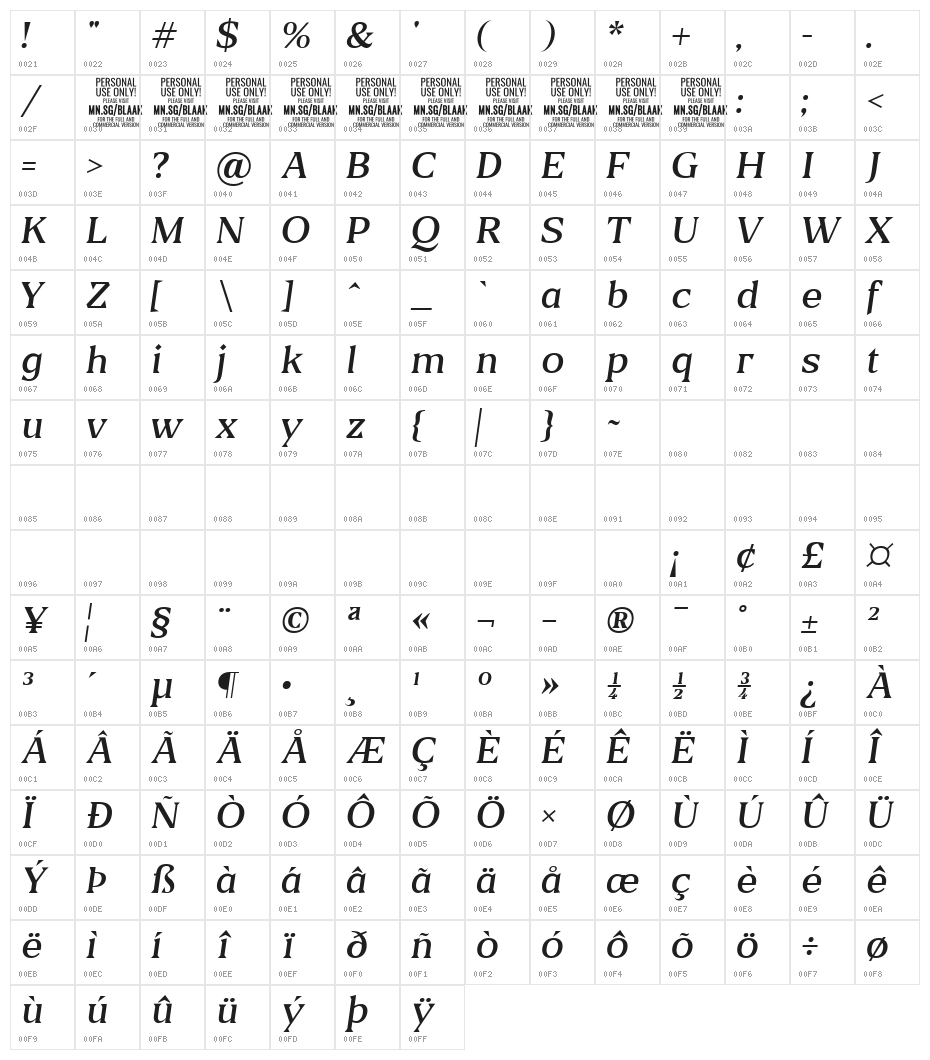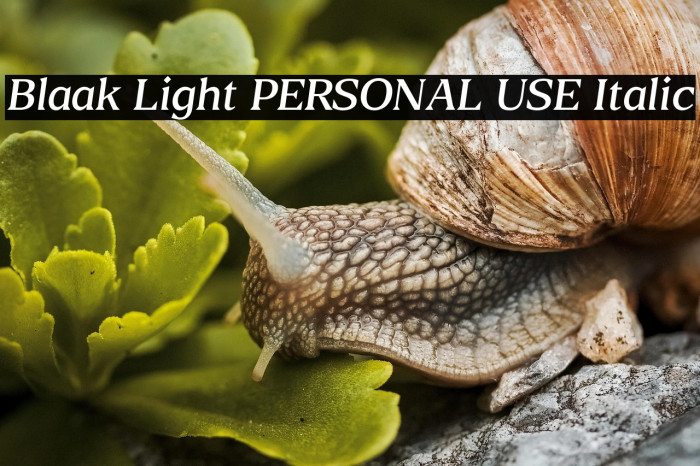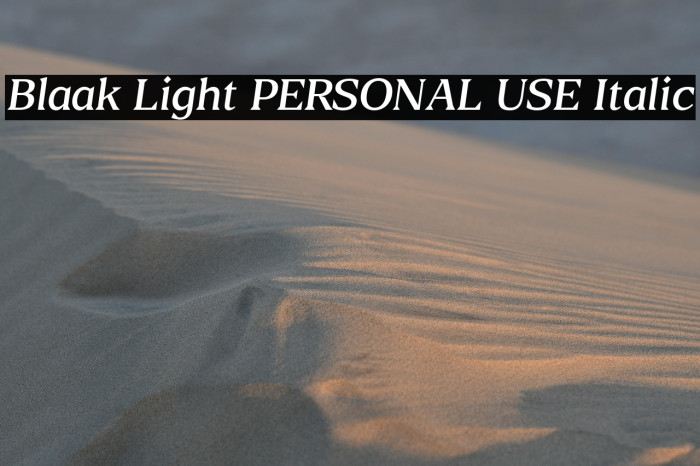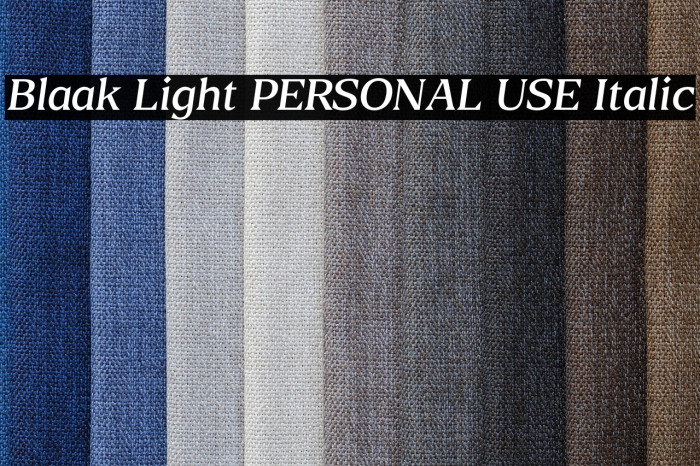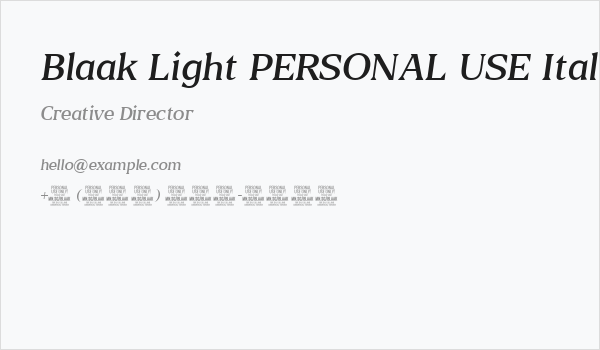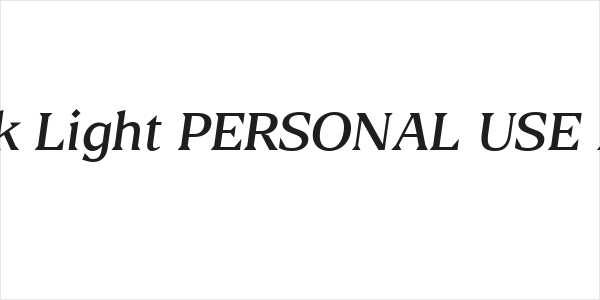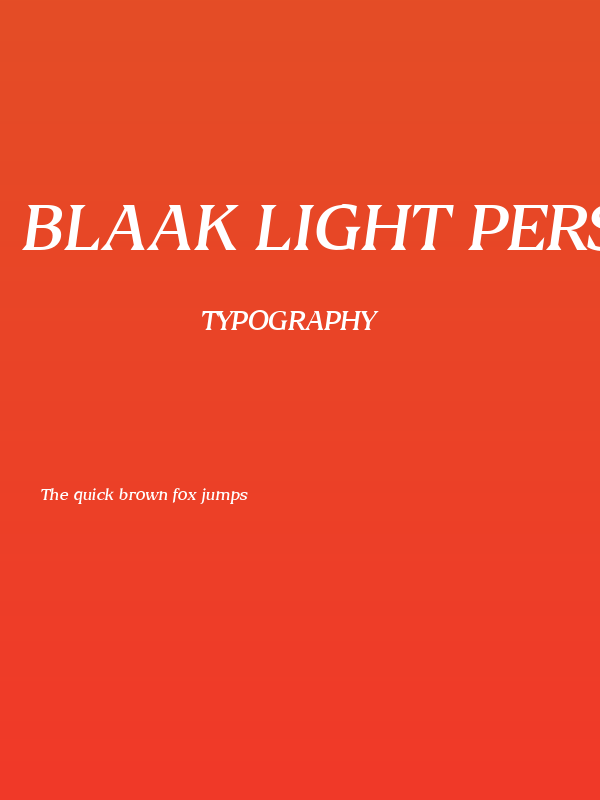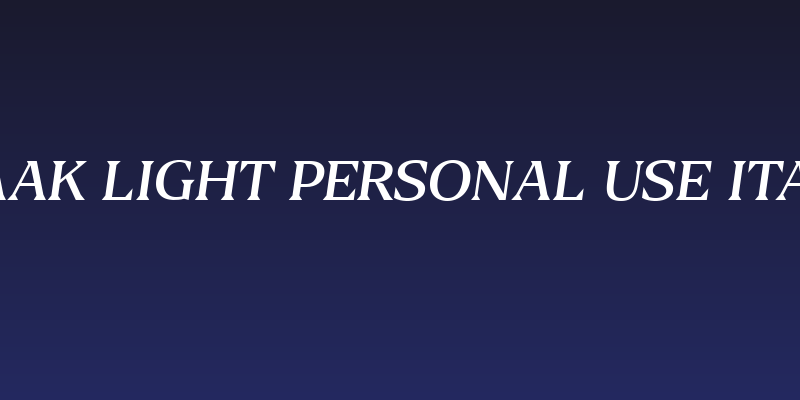
Blaak Light PERSONAL USE Italic Font
Blaak Light PERSONAL USE Italic Description
This typeface features a sophisticated and elegant design with a classic serif style. The letters are slightly slanted, indicating an italic form, which adds a dynamic and flowing appearance to the text. The strokes are moderately thick, providing a medium contrast that enhances readability while maintaining a refined aesthetic. The characters are well-proportioned with a balanced width, and the spacing between them is normal, ensuring clarity and legibility. This font exudes a timeless charm, making it suitable for a variety of formal and creative applications.
| Proposed Projects | Ideal for use in editorial design, book covers, invitations, and branding projects that require a touch of elegance and sophistication. |